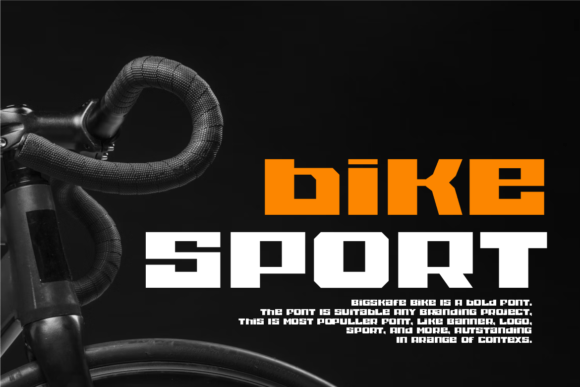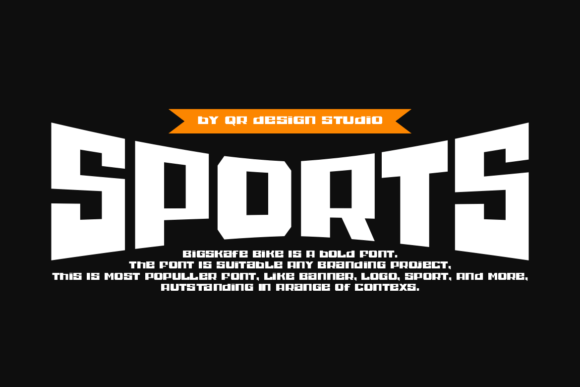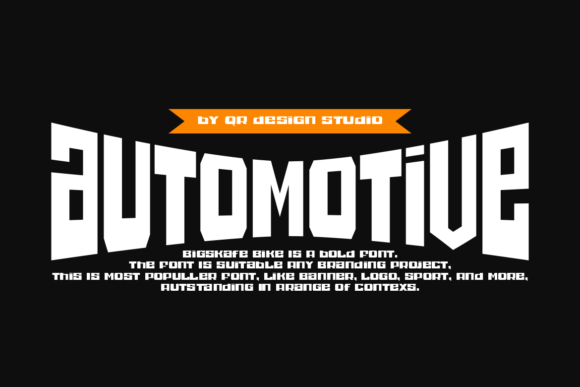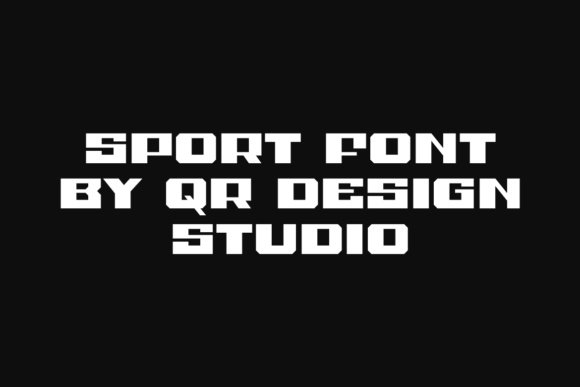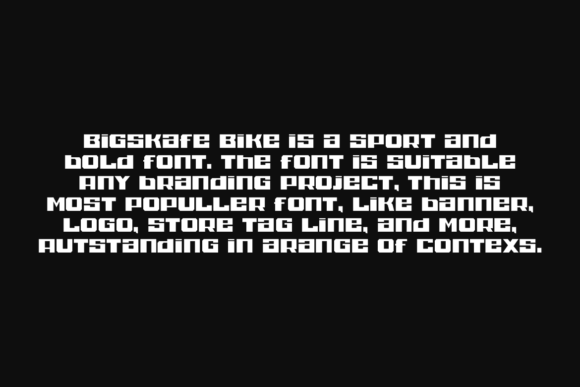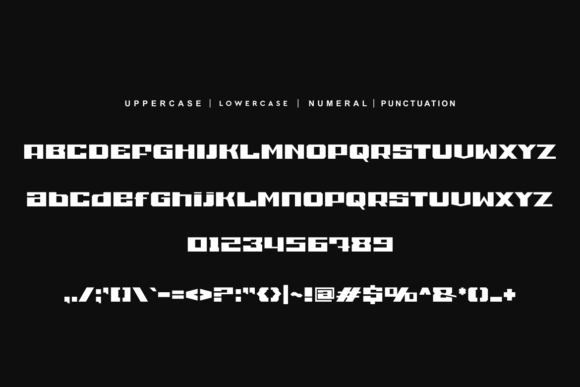
Introducing Bigskafe Bike Font: The Ultimate Choice for Sports and Biking Enthusiasts
In the world of typography, fonts play a crucial role in conveying the message and tone of a brand or design. For sports and biking enthusiasts, a font that exudes strength, energy, and dynamism is essential. This is where Bigskafe Bike Font comes into play – a robust, blocky font designed specifically for sports, biking, and active lifestyles. In this article, we’ll explore the features, benefits, and uses of Bigskafe Bike Font, making it a must-read for designers, crafters, and biking enthusiasts alike.
The Power of Bigskafe Bike Font
Bigskafe Bike Font is a strong, blocky font that makes a big statement. Its bold letters are carefully crafted to convey a sense of power, speed, and agility, making it perfect for anything related to biking or active lifestyles. The font’s robust design ensures that it stands out from the crowd, grabbing attention and leaving a lasting impression on the viewer.
Key Features of Bigskafe Bike Font
- Bold and Blocky Design: Bigskafe Bike Font features a bold, blocky design that exudes strength and energy.
- Easy to Read: Despite its bold design, the font is easy to read, making it perfect for use in a variety of applications, from logos and branding to posters and flyers.
- Attention-Grabbing: The font’s bold letters are designed to grab attention, making it ideal for use in advertising, marketing materials, and social media graphics.
- Versatile: Bigskafe Bike Font is versatile and can be used in a variety of contexts, from sports and biking to fitness and wellness.
Uses of Bigskafe Bike Font
Bigskafe Bike Font is perfect for a wide range of applications, including:
- Logo Design: Create a bold and memorable logo for your biking or sports brand.
- Posters and Flyers: Design eye-catching posters and flyers for biking events, sports competitions, or fitness classes.
- Social Media Graphics: Create engaging social media graphics that showcase your brand’s personality and style.
- Merchandise: Use Bigskafe Bike Font on merchandise such as t-shirts, hats, and water bottles to create a cohesive brand image.
Bigskafe Bike Font offers numerous benefits for designers and crafters, including:
- Instant Recognition: The font’s bold design ensures instant recognition, making it perfect for use in logos and branding.
- Easy to Pair: Bigskafe Bike Font pairs well with a variety of fonts, making it easy to create a cohesive visual identity.
- High-Quality Design: The font is designed with high-quality craftsmanship, ensuring a professional finish.
- Time-Saving: With Bigskafe Bike Font, designers and crafters can save time and effort, focusing on other creative aspects of their project.
In conclusion, Bigskafe Bike Font is a powerful, bold, and attention-grabbing font designed specifically for sports, biking, and active lifestyles. Its robust design, ease of readability, and versatility make it an ideal choice for designers, crafters, and biking enthusiasts alike. Whether you’re looking to create a logo, poster, or social media graphic, Bigskafe Bike Font is the perfect choice for making a big statement.